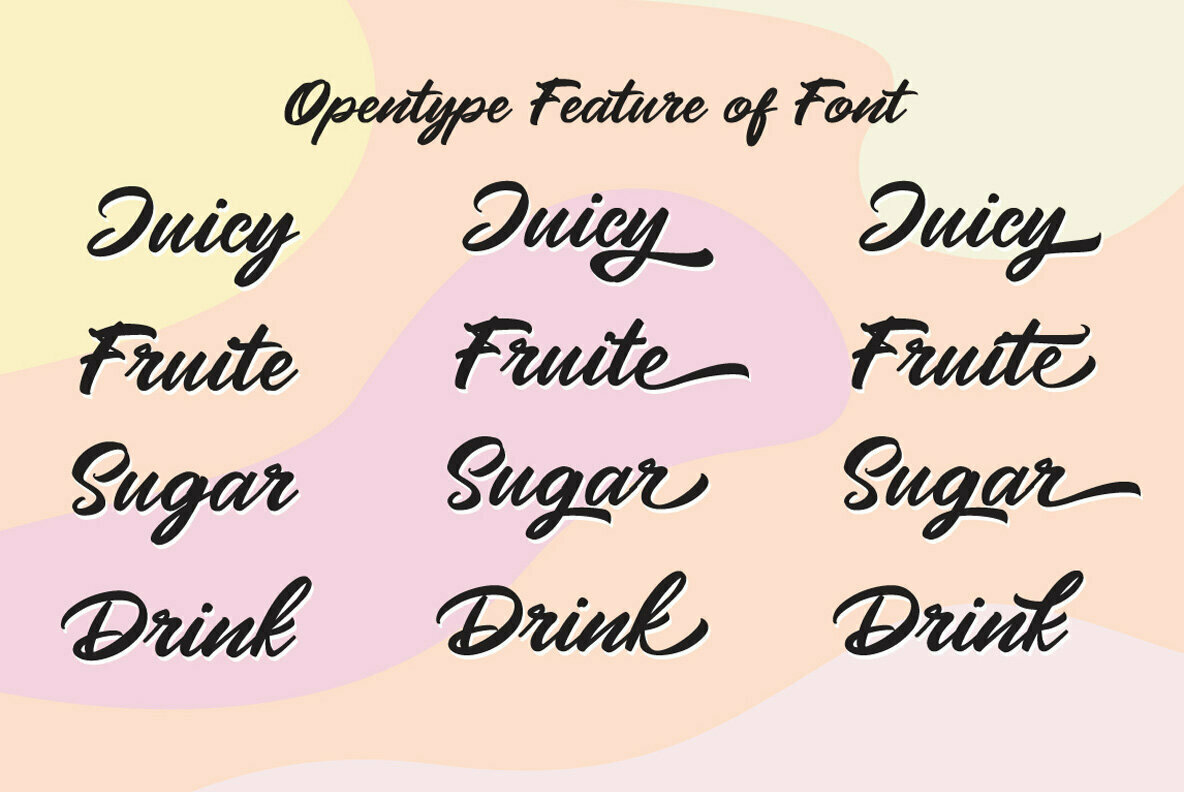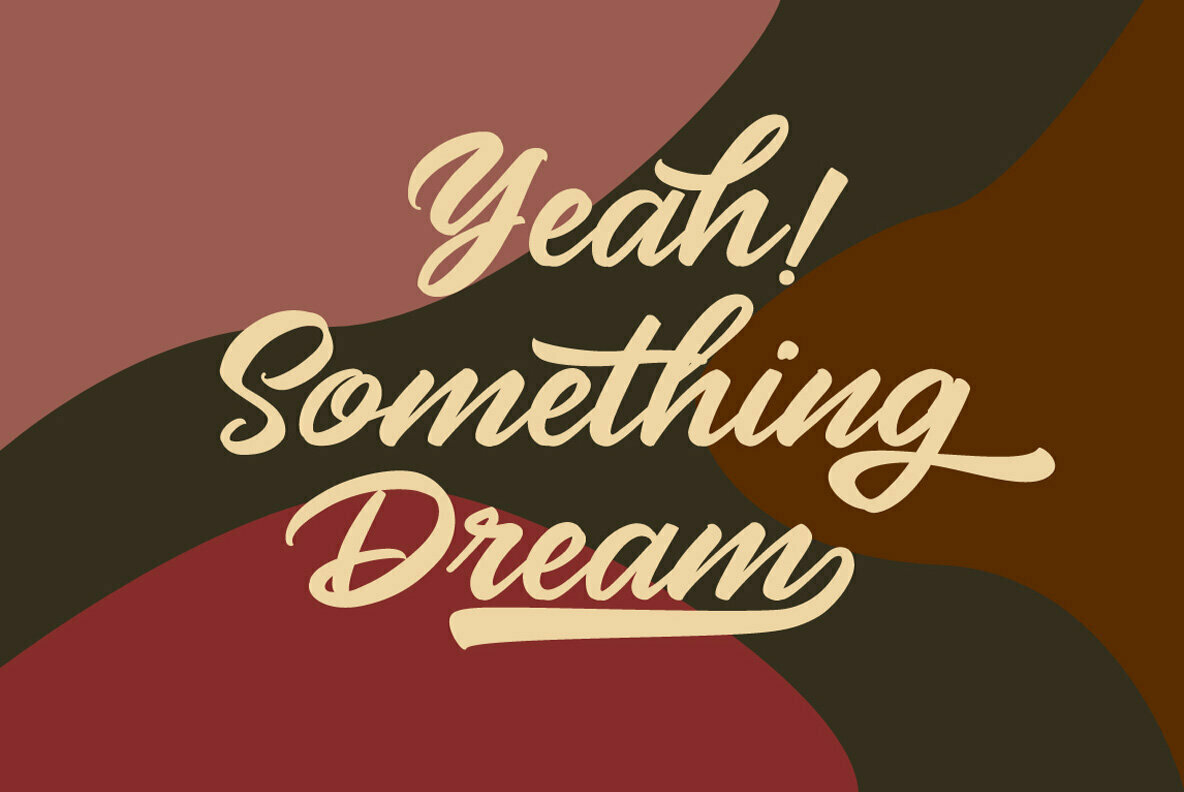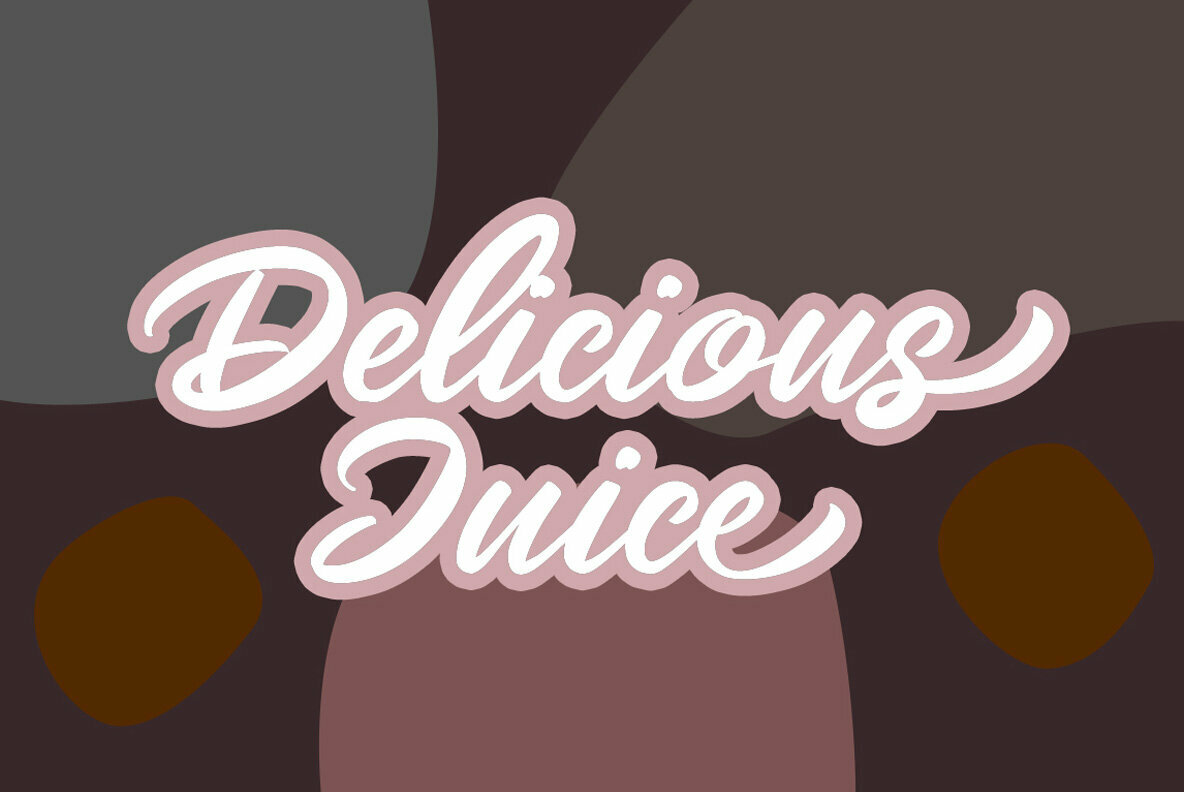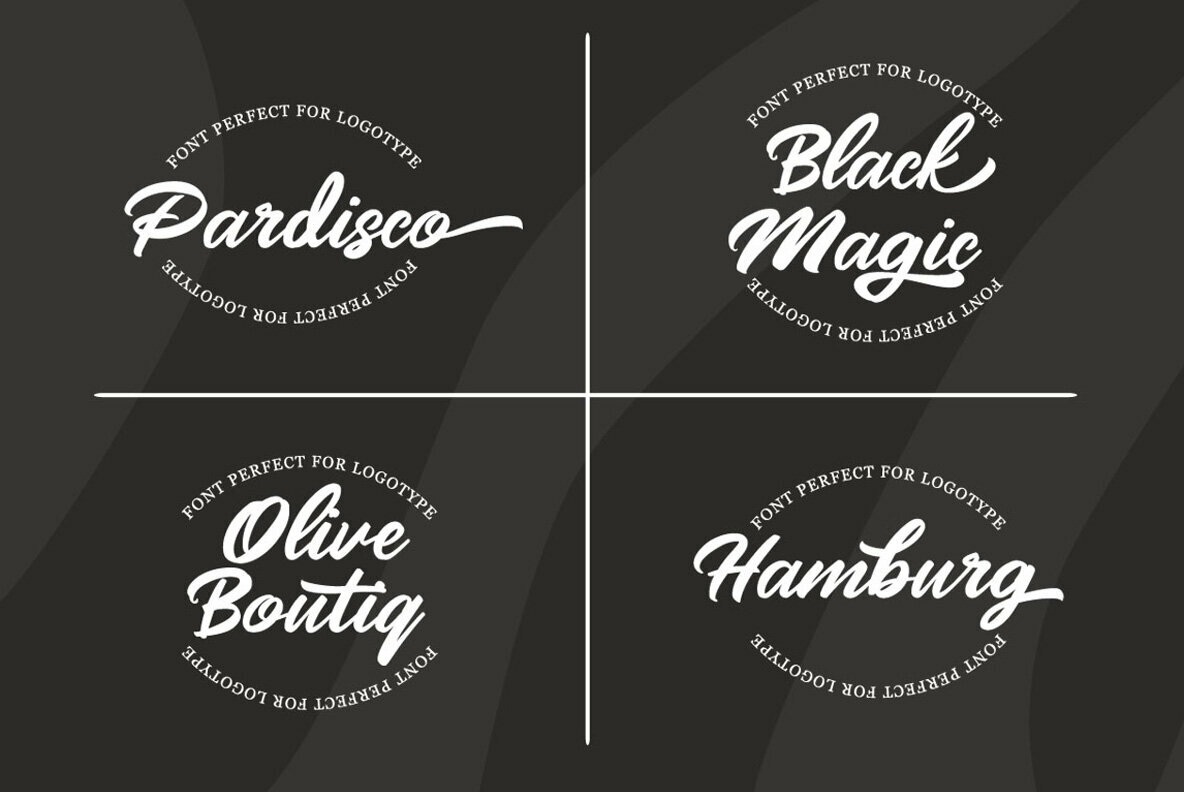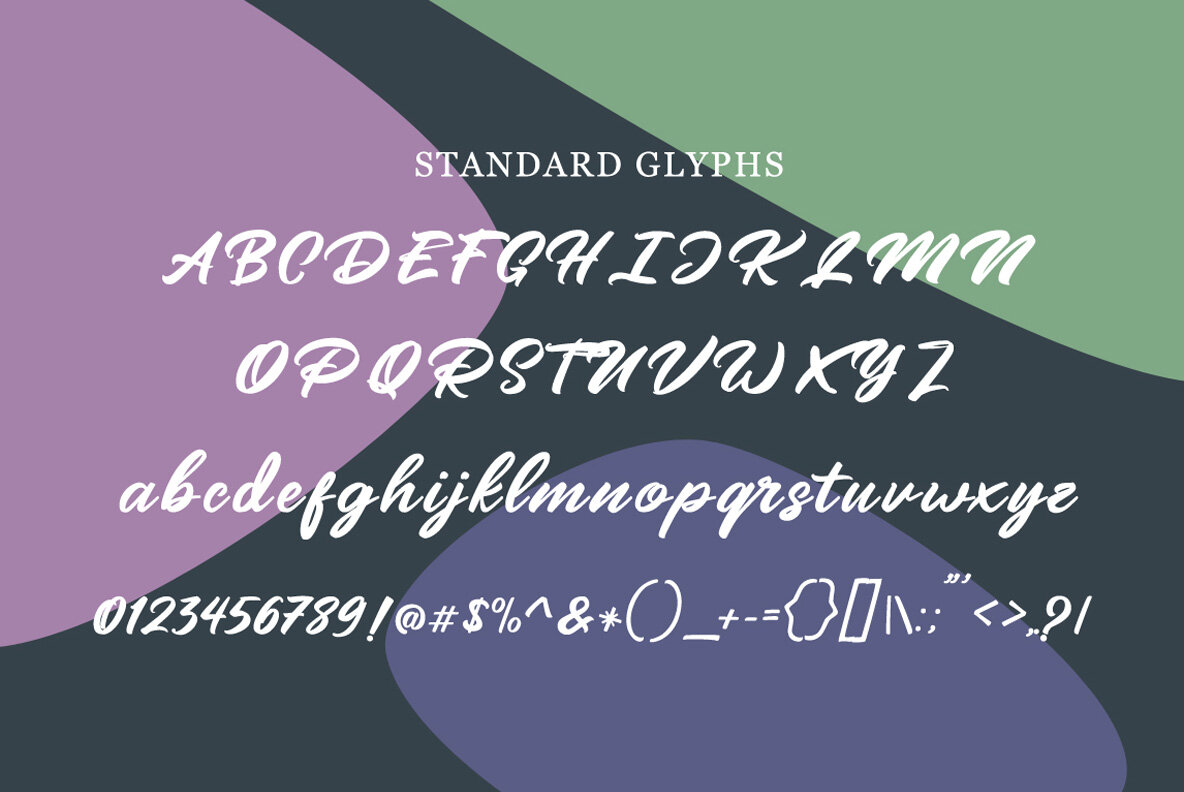
Mangotea Font
Mangotea
Elevate your design projects with Mangotea Script, a bold brush font that exudes vitality and creativity. Crafted in the handlettering brush style, this typeface is an excellent fit for diverse applications, from weddings and events to logos and apparel. Its distinctive character and energy make it a superb choice for designers looking to create memorable and impactful visuals.Mangotea Script: Bold Brush Font with Handlettering Style
Embrace Mangotea Script for your next project, and watch it come to life with personality and flair.